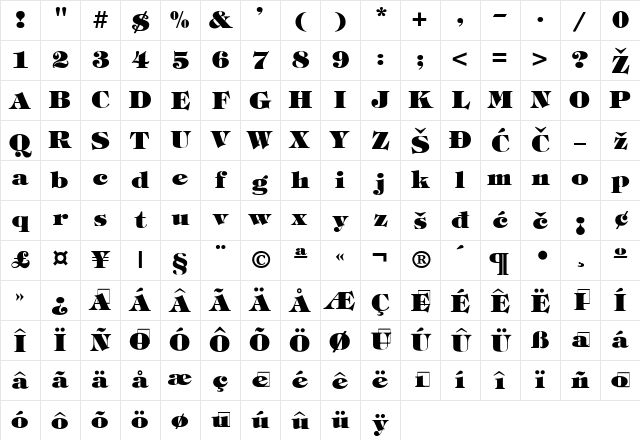
0Tim-H Regular
Design Context for 0Tim-H
0Tim-H is a composed and adaptable typeface that performs quietly and consistently across a wide range of design contexts.